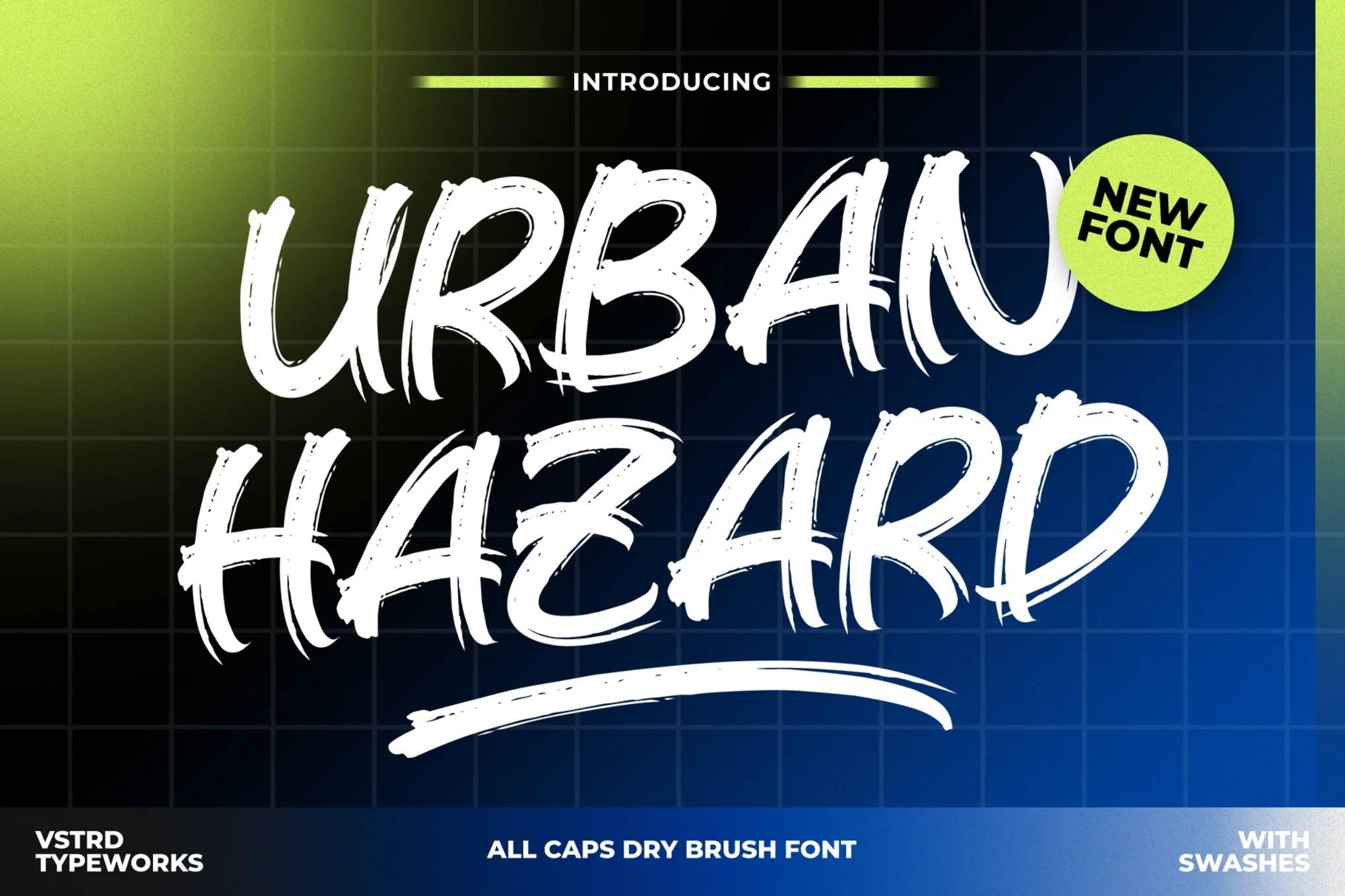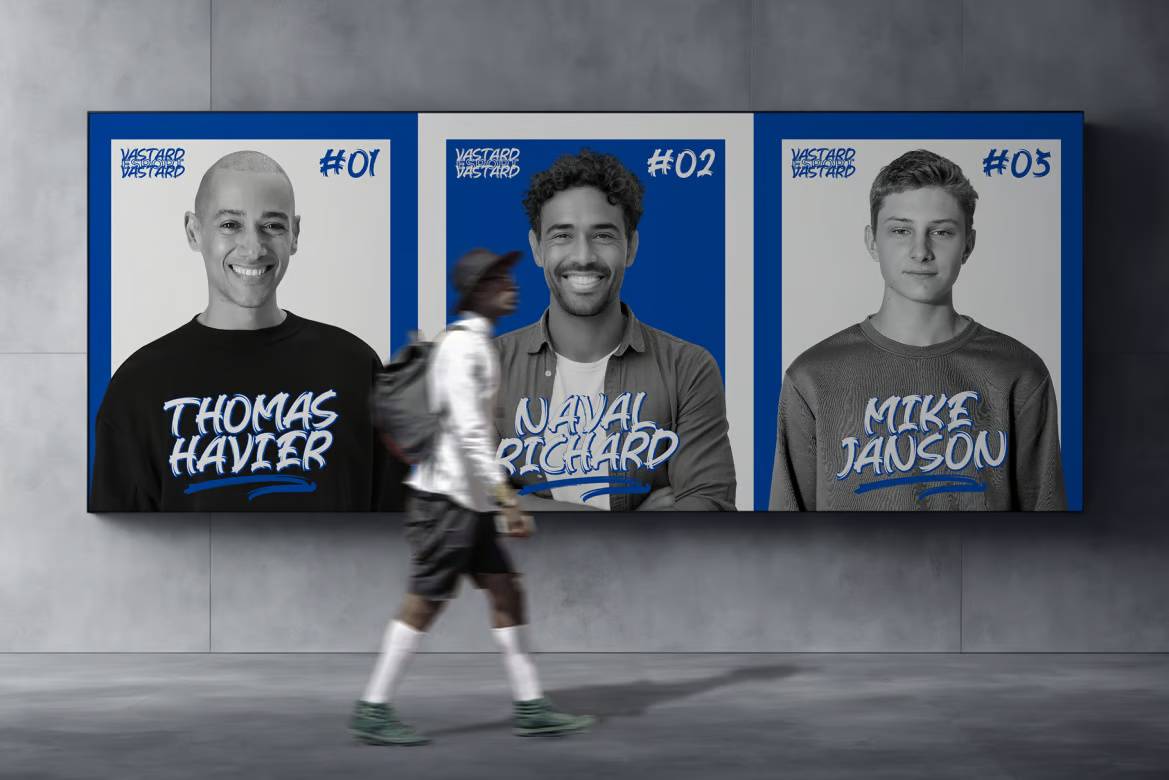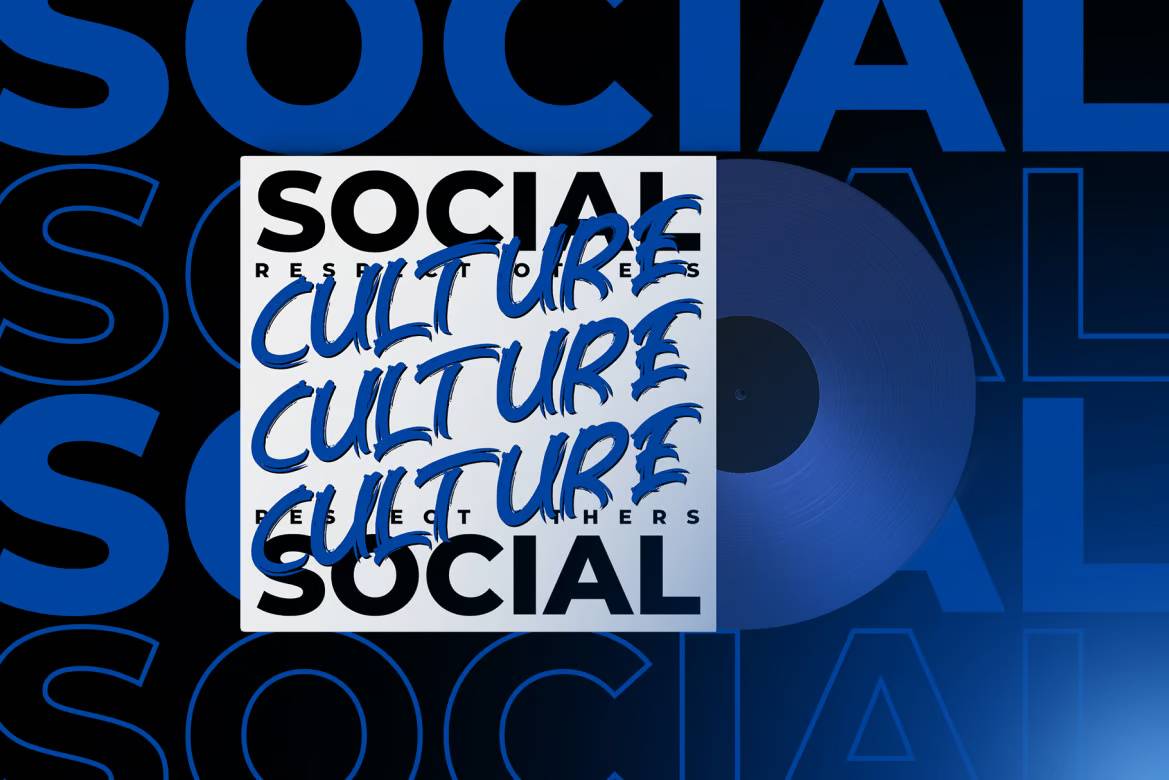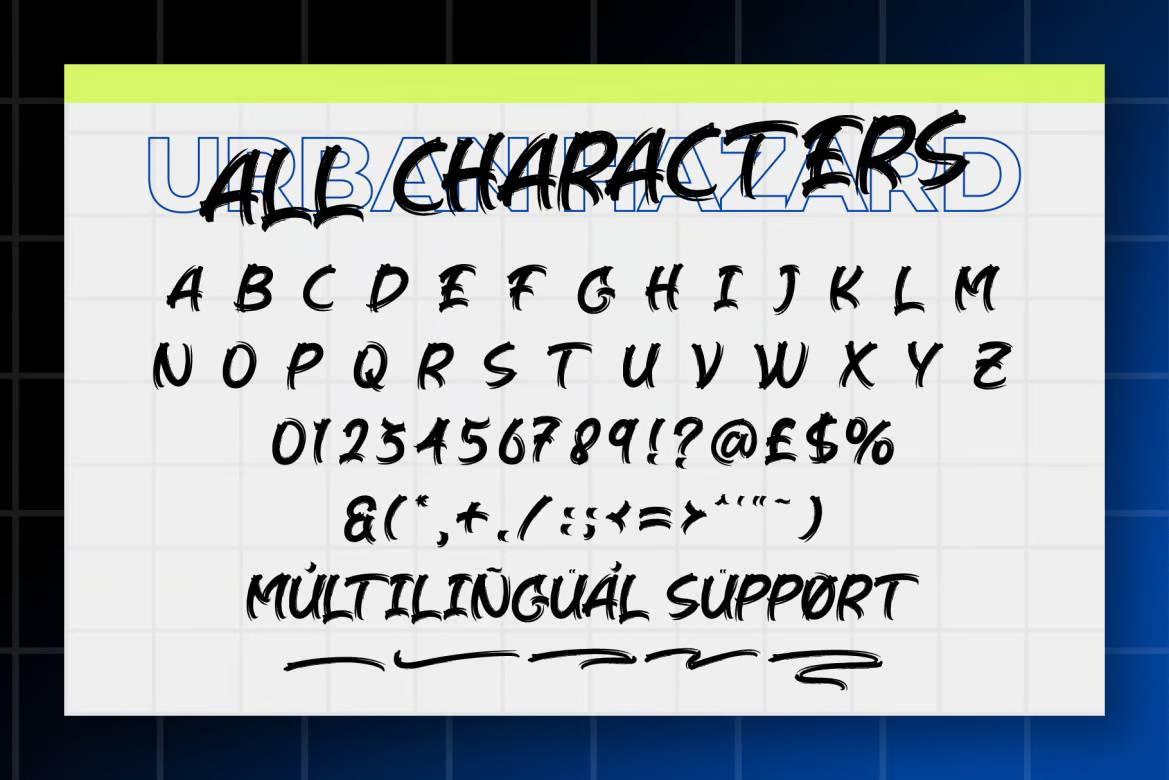
Urban Hazard Font
Inject bold energy and raw attitude into your designs with Urban Hazard, a dynamic brush font created from authentic hand brush strokes. Its fierce and expressive style is perfect for urban-themed campaigns, logos, food and beverage branding, promotional materials, video titles, quotes, and striking text overlays.
Urban Hazard – Brush Font